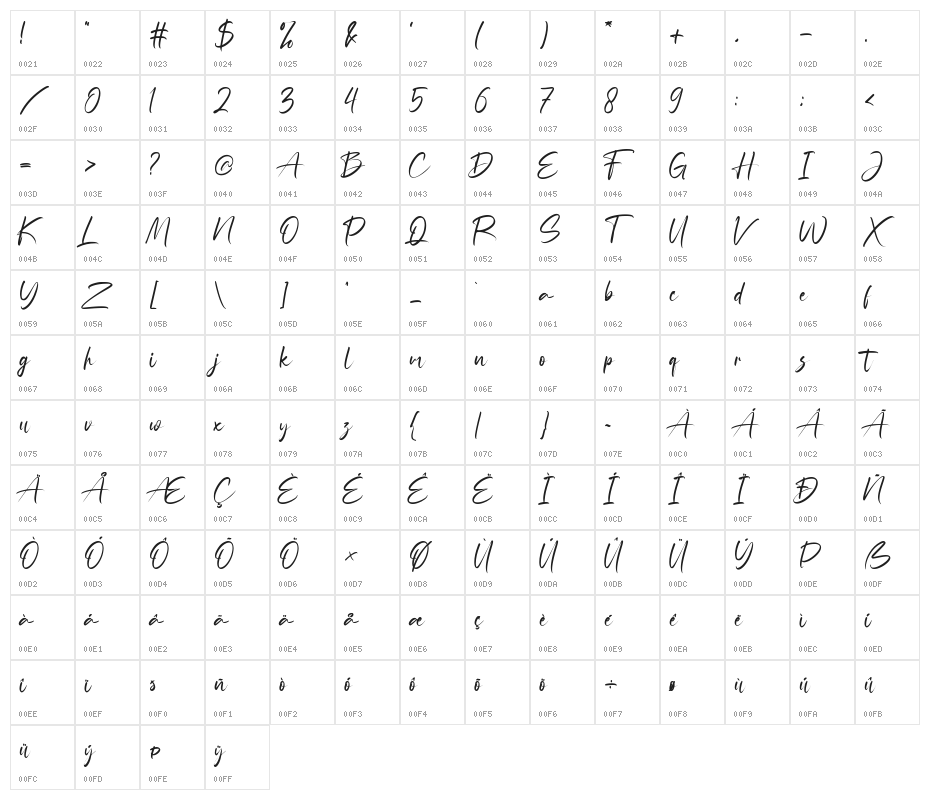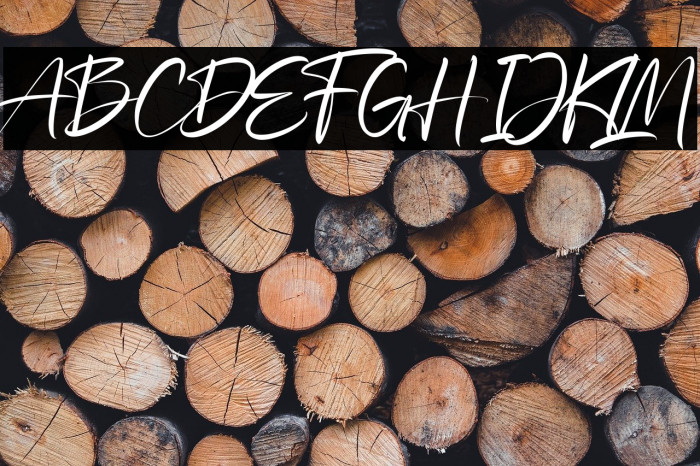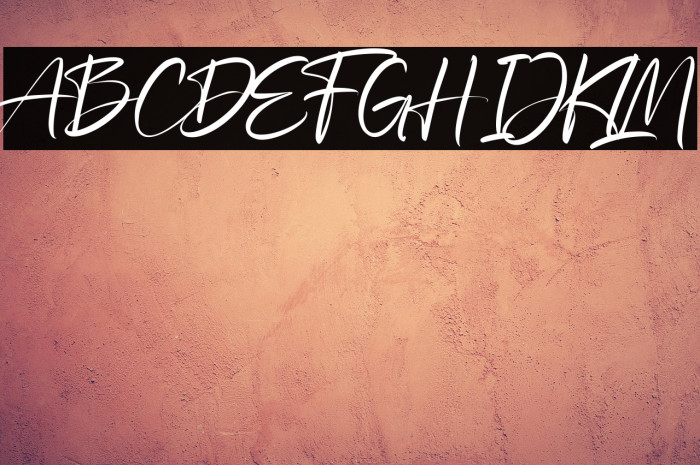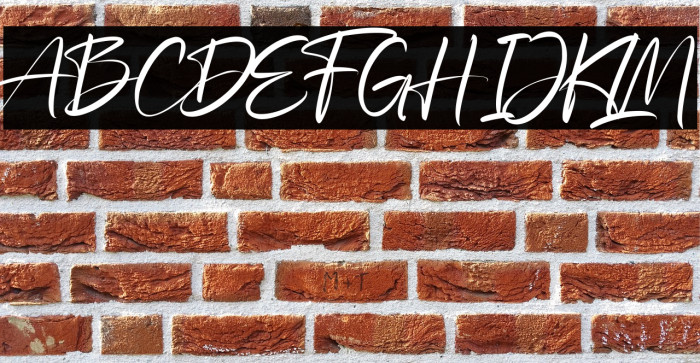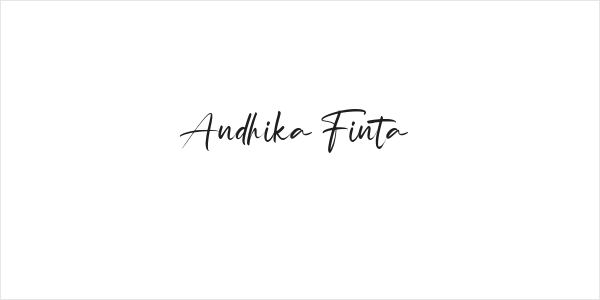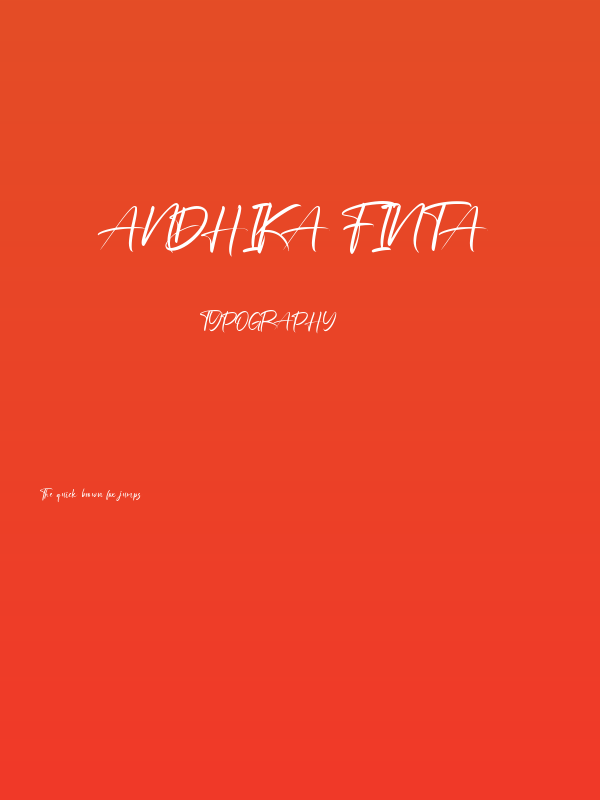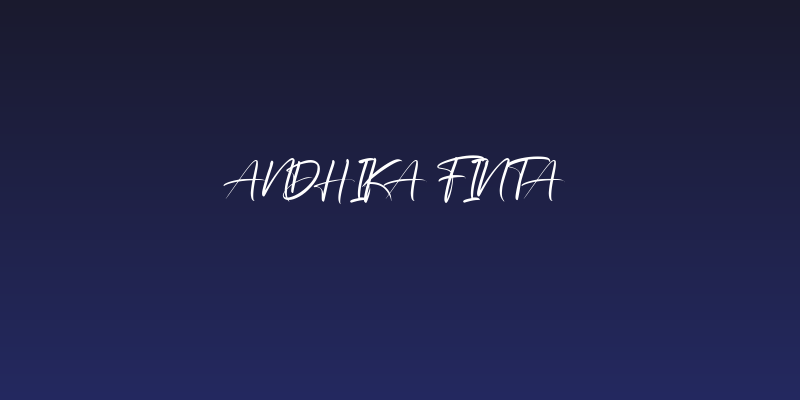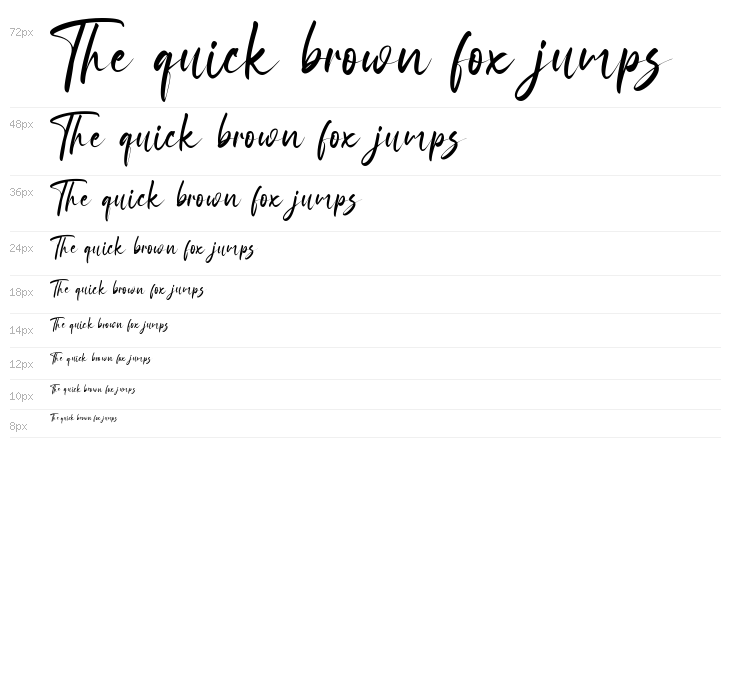
Andhika Finta Font
Andhika Finta Description
A flowing, handwritten script font with dynamic, sweeping strokes and a casual, modern feel. The characters are slightly slanted with varying stroke thickness, giving an expressive and energetic appearance.
| Use Case | Logos, Headlines, Invitations, Social media posts |
| Proposed Projects | Invitations, greeting cards, branding, social media graphics, quotes, posters. |